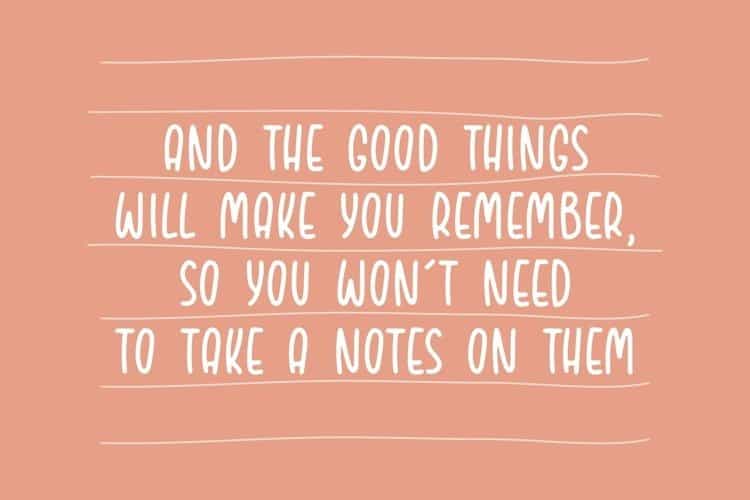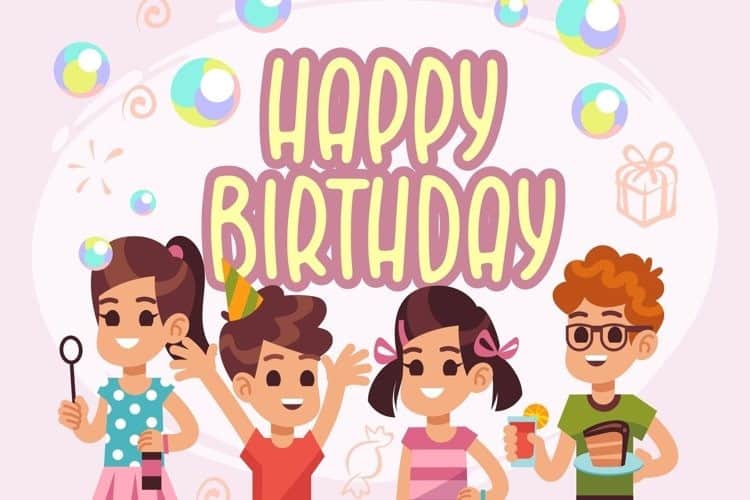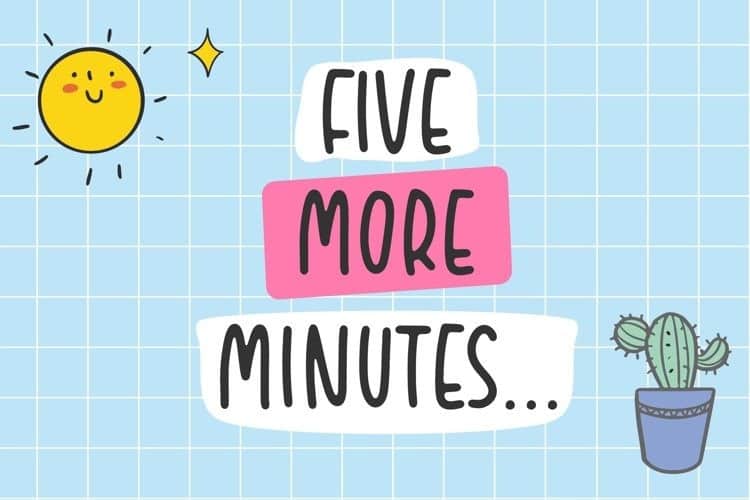
BODYNOTE Fun Handbrushed Font
Proudly Present, BODYNOTE Fun Handbrushed Font.
BODYNOTE is a Fun Handbrushed Font.
It’s perfect for product packaging, branding project, megazine, social media, wedding, or just used to express words above the background.